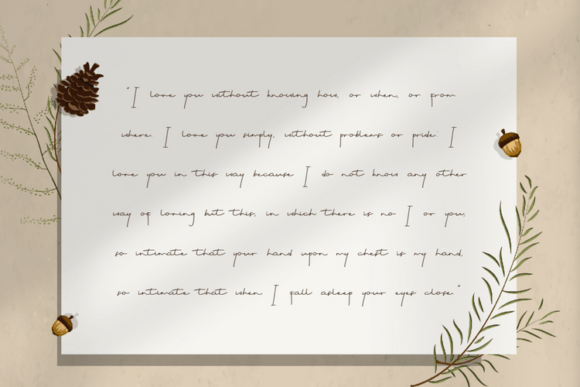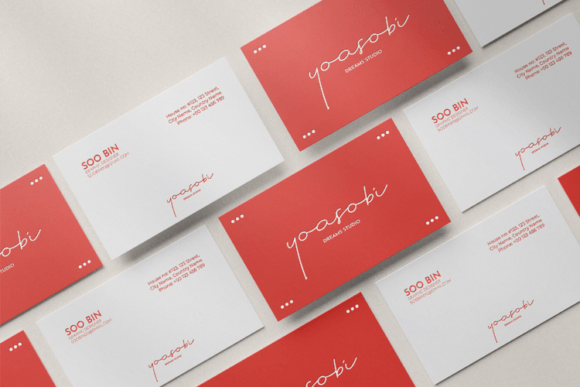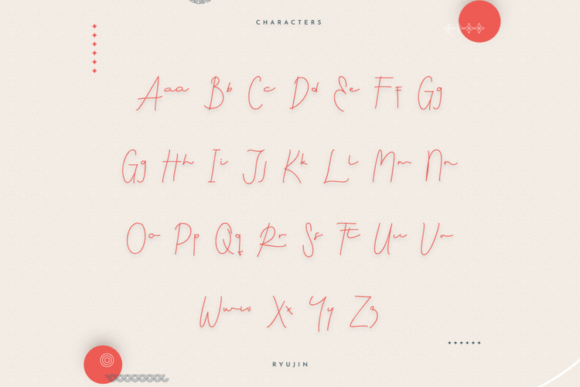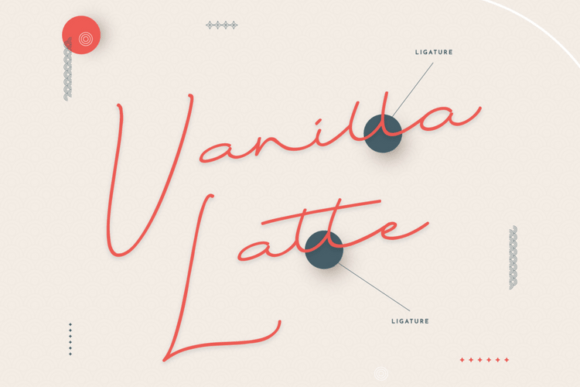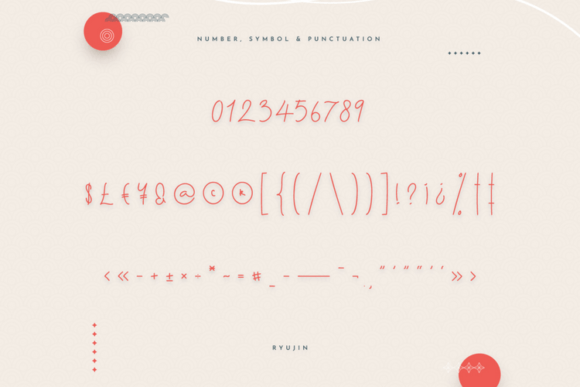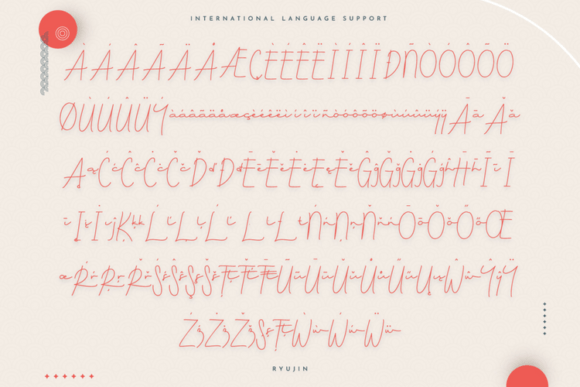
Introduction to Ryujin Font
Have you ever stared at a blank canvas, searching for the perfect font to bring your creative project to life? The struggle is real, especially when you’re working on a design that demands elegance and sophistication. That’s where the Ryujin Font comes in – a lovely and delicate script font that exudes class and refinement.
As a designer, you understand the importance of having a high-quality design resource like the Ryujin Font in your arsenal. With its potential to enhance any creation, this font is a valuable addition to your library. Whether you’re working on a digital or print project, the Ryujin Font’s versatility and charm will surely make it a favorite among your design tools.
Key Features of Ryujin Font
- High-quality design resource for creative projects, featuring a unique and stylish font.
- Features a transparent background, making it easy to use in a variety of design applications.
- Includes multiple styles and weights, allowing for a range of creative possibilities.
Honest Review: Ryujin Font
The Ryujin Font is a high-quality design resource that is sure to elevate your work. The font’s sleek and modern design makes it perfect for a variety of applications, from digital displays to print materials.
One of the standout features of the Ryujin Font is its ability to work well with transparent backgrounds. This makes it easy to incorporate into your designs without worrying about awkward white spaces.
Here are some of the things that work well with the Ryujin Font:
- High-quality design: The font is crisp and clear, making it perfect for a variety of applications.
- Transparent background: The font works well with transparent backgrounds, making it easy to incorporate into your designs.
As with any font, there are some limitations to consider:
- Limited character set: The font may not have a full character set, which could be a problem for designers who need to work with non-English text.
- No bold or italic weights: The font only comes in a regular weight, which may not be suitable for all design applications.
Overall, I’m really impressed with the Ryujin Font. It’s a high-quality design resource that is perfect for a variety of applications. While it has some limitations, the font’s sleek and modern design makes it a great addition to any creative project.
Tips for Getting the Most Out of Ryujin Font
Experiment with different font sizes, colors, and styles to achieve a unique look. Use the font’s transparent version to create a seamless design. Combine the Ryujin Font with other design elements to create a visually appealing design.
The Ryujin Font is ideal for use in social media graphics, presentations, documents, and other creative projects. Its high-quality design and transparent background make it a versatile design resource for various applications.
Q: Is the Ryujin Font suitable for digital and print designs?
The Ryujin Font is designed to be versatile and suitable for both digital and print designs. Its high-quality design and transparent background make it an excellent choice for creating visually appealing designs for websites, social media, and print materials. The font’s flexibility ensures it will work well in various design contexts, from logos to typography-heavy projects.